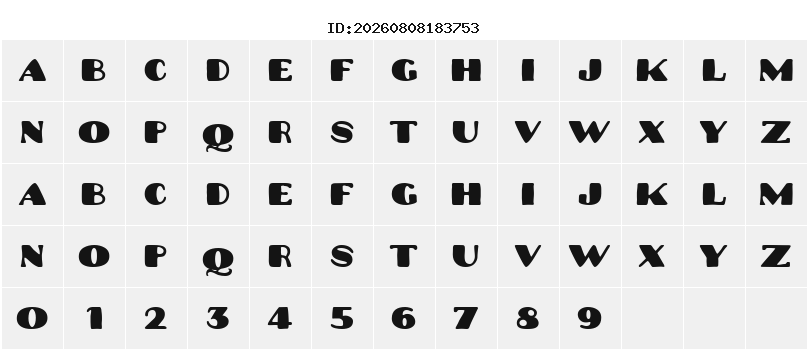
• Font Name: Platinum Hub Caps Solid
• Version: 1.0 - 07/28/99
About Platinum Hub Caps Solid.ttf
Platinum Hub Caps Solid.ttf is a modern, elegant sans-serif font designed for ultimate readability and visual harmony. Perfect for branding, headlines, web design, and print materials.